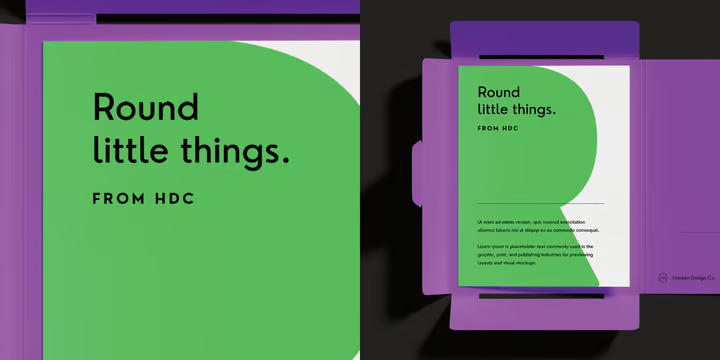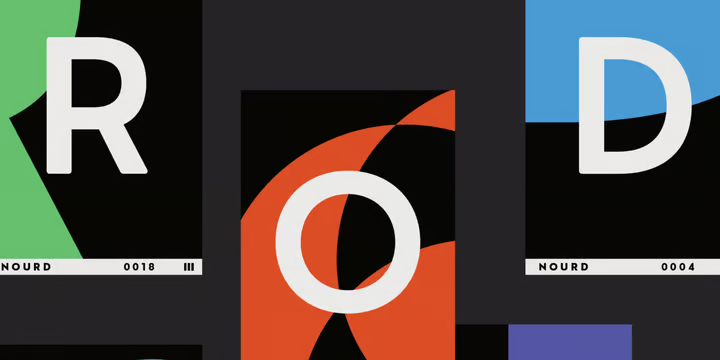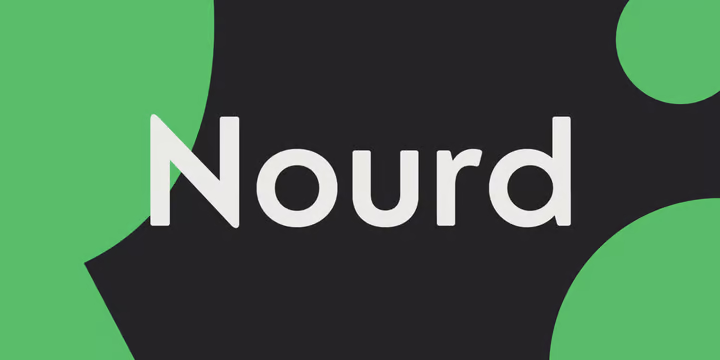
Nourd Font Family
A sans serif with rounded features that softens its strong geometric outline. This font will be perfect for your logo design, branding, clothing, signage, posters, wedding invitations, cosmetic or fashion and so much more!
Where Nourd Font Family works best
Nourd Font Family stays legible at small sizes, which makes it a strong choice for navigation, buttons and dashboards in web design and app interfaces.
Clean sans serifs like Nourd Font Family are the default language of SaaS, fintech and product branding.
What is Nourd Font Family good for?
Nourd Font Family is a Sans Serif Fonts typeface tagged Branding, Geometric, Poster, Sans Serif. It works well for headlines, logos, posters, social media graphics and branding projects that need a distinctive sans serif fonts look.